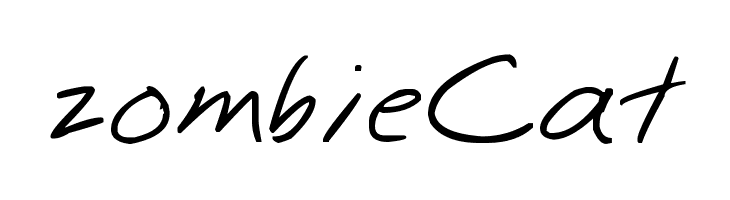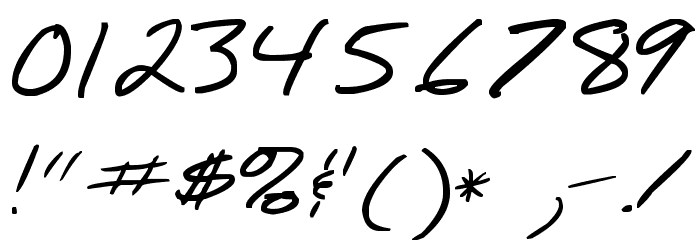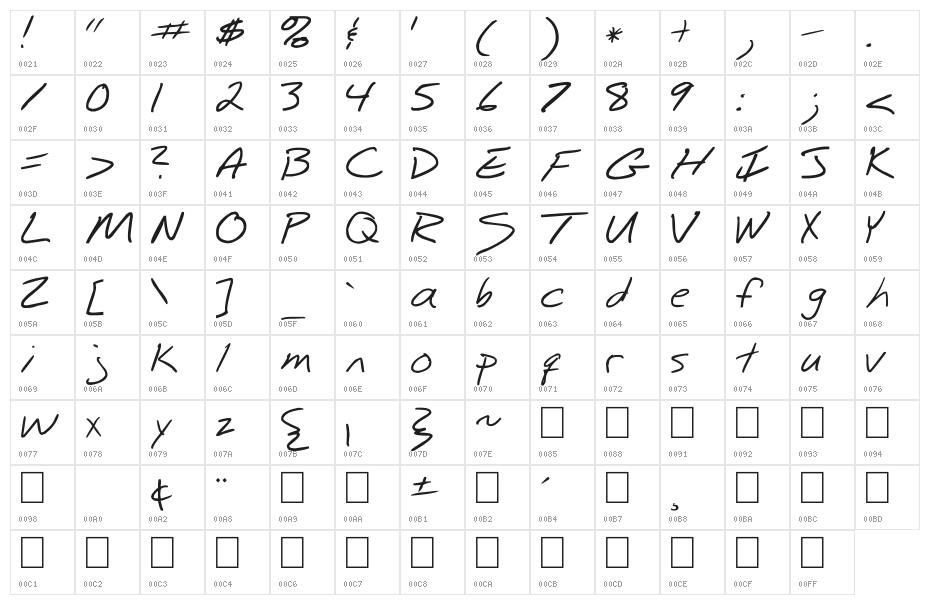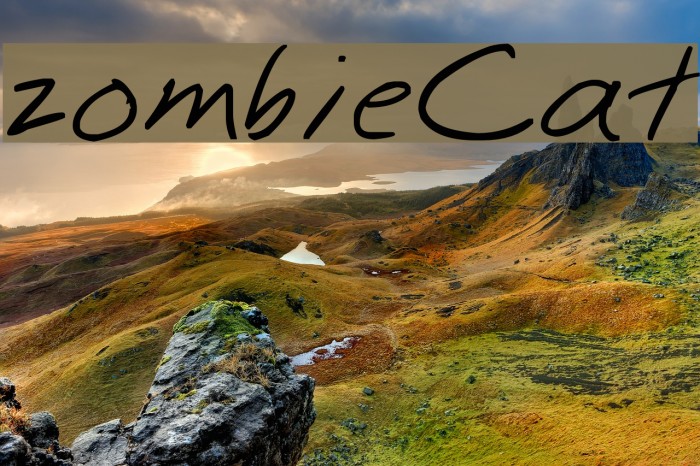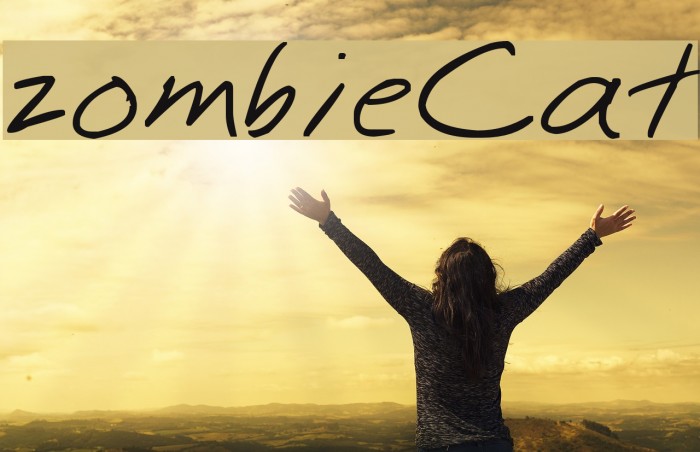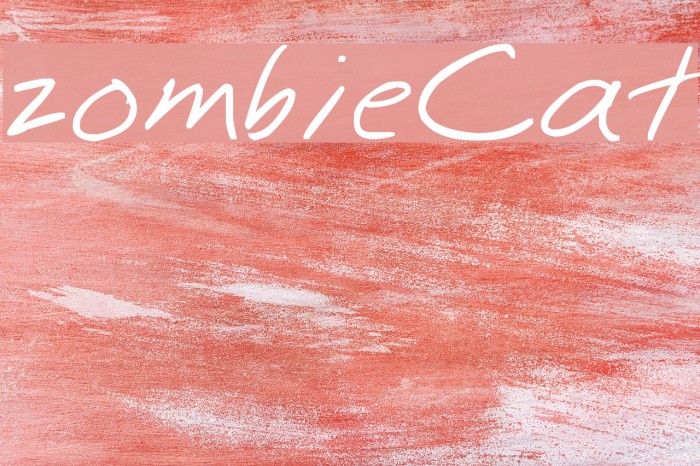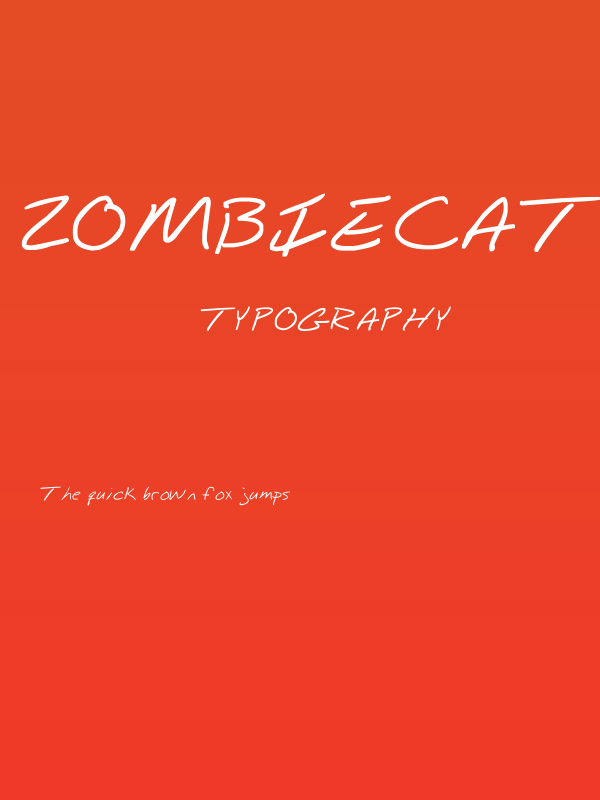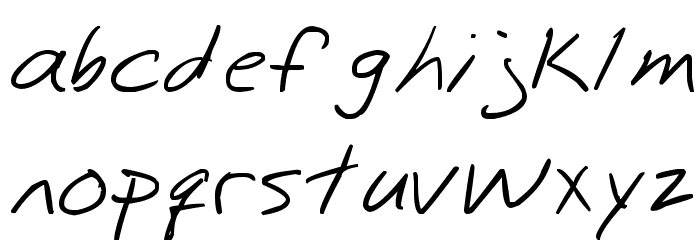
zombieCat Font
zombieCat Description
This font exhibits a casual, handwritten style with a playful and dynamic appearance. The characters are slightly slanted, giving a sense of movement and energy. The strokes are uneven, mimicking the natural flow of handwriting, which adds a personal and informal touch. The uppercase and lowercase letters are distinct yet harmonious, maintaining readability while offering a unique flair. The numbers and special characters follow the same style, ensuring consistency throughout. This font is ideal for projects that require a personal, approachable, and creative vibe.